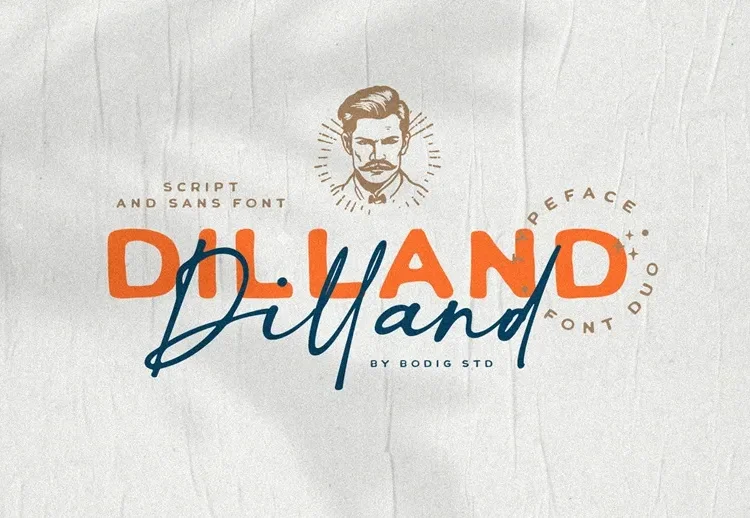
Dilland Font Duo
Dilland is a beautiful font duo featuring both script and sans serif styles. Its exquisite, organic design brings a natural and authentic vibe to any project, making it a fantastic choice for those looking to incorporate cursive writing with a touch of sophistication. The harmonious pairing of the two styles creates a classy and versatile aesthetic.
This font duo is perfect for projects requiring an elegant yet natural look. Whether you’re working on branding, packaging, or invitations, Dilland adds a refined touch with its flowing script and clean sans serif counterpart. Its versatility ensures it fits seamlessly into various design contexts.
From wedding stationery to product labels and beyond, Dilland is ideal for creating a polished and authentic visual style. The organic nature of the font makes it stand out while maintaining a timeless appeal for all your creative needs.